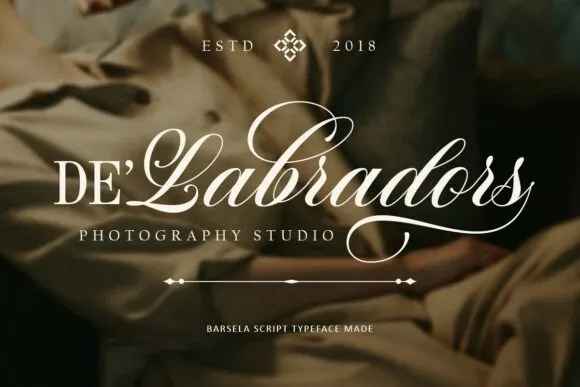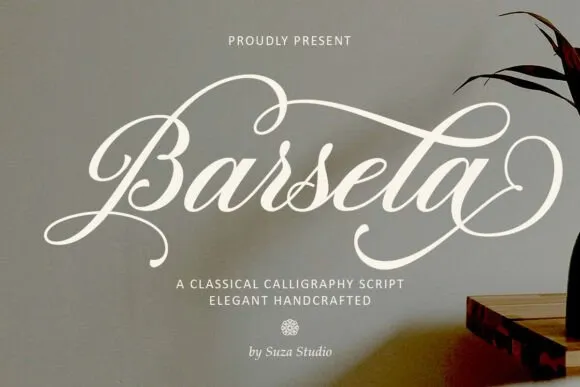
Barsela Calligraphy Font Download
Barsela Calligraphy Font is a richly styled calligraphy script text style that accompanies delightful substitute characters. a blend of copper calligraphy with a hand-lettering style. Intended to introduce an exquisite style.
Barsela Calligraphy Font is appealing on the grounds that it is smooth, spotless, female, sexy, stylish, basic, and exceptionally simple to peruse.
The exemplary style is entirely appropriate to be applied to a wide range of formal things like solicitations, marks, menus, logos, design, cosmetics, writing material, letterpress, heartfelt books, magazines, books, welcoming/wedding cards, bundling, and names.